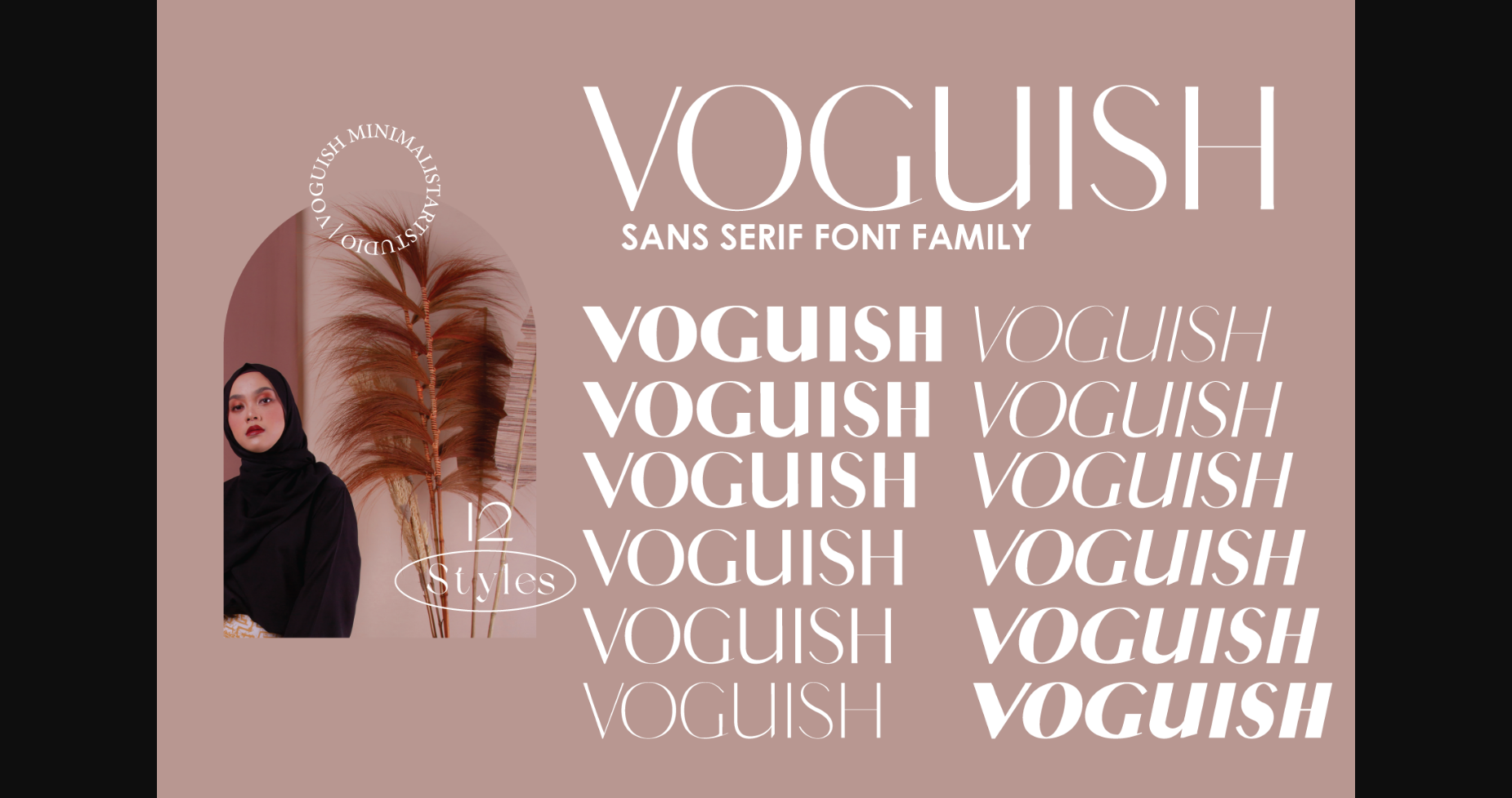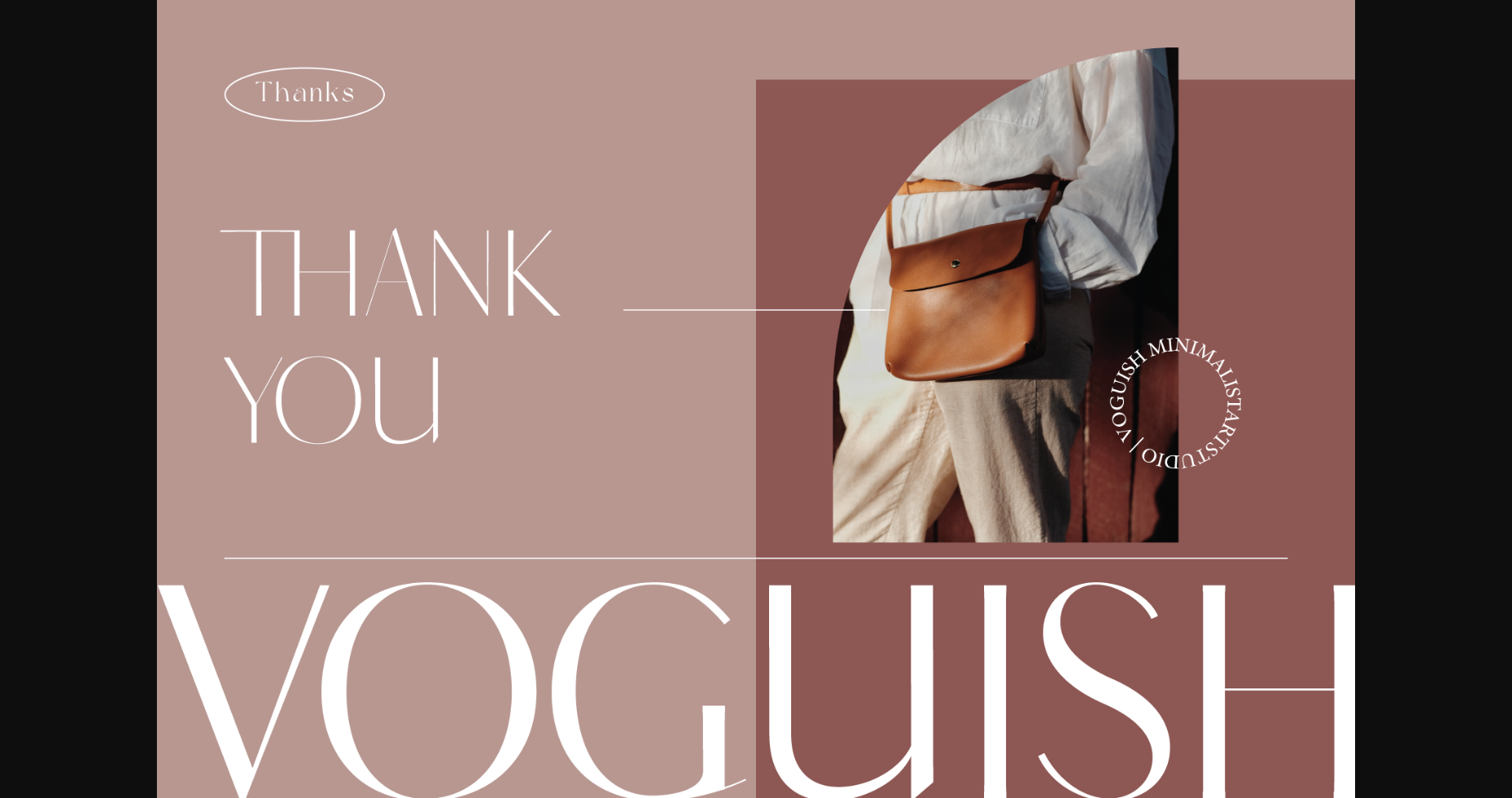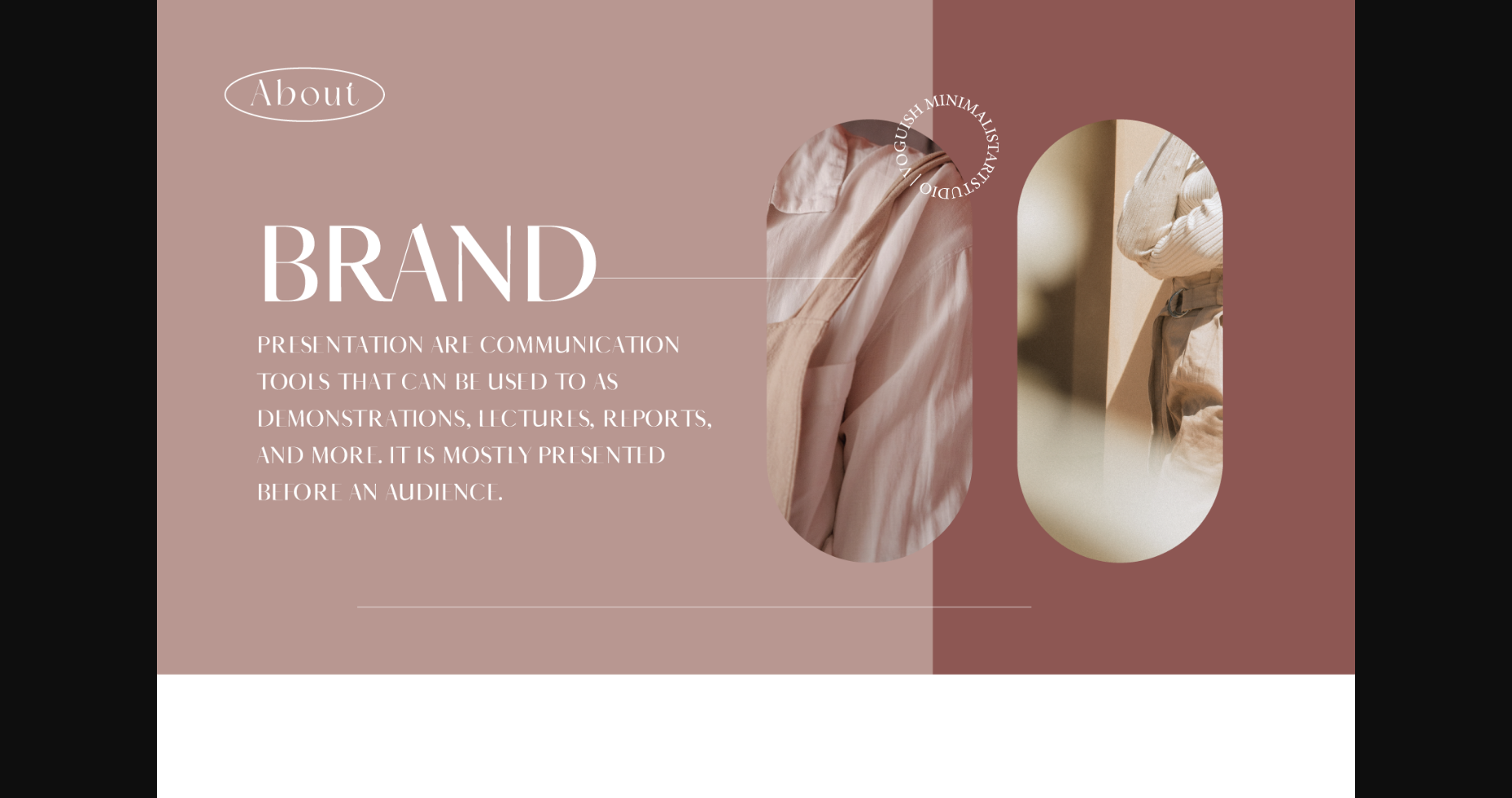
About Voguish Font
Voguish is a chic, elegant, and stylish grotesque sans serif font family. Whatever the context is, this font family will add great value to your creations. Use it confidently in your creative ideas, and notice how it has the potential to bring each of your projects to the highest level!